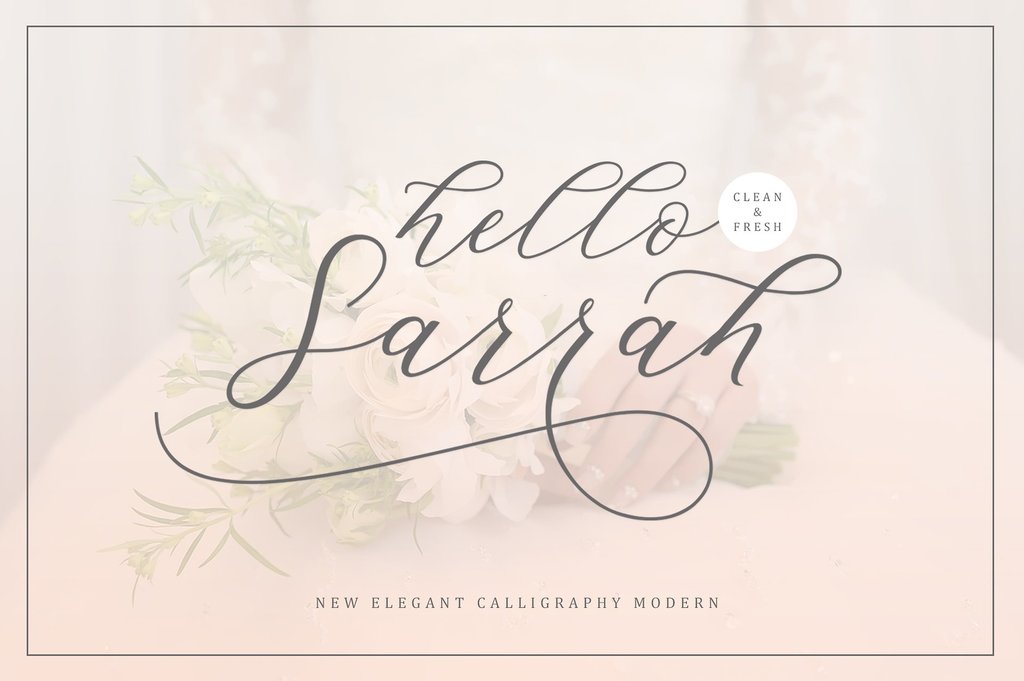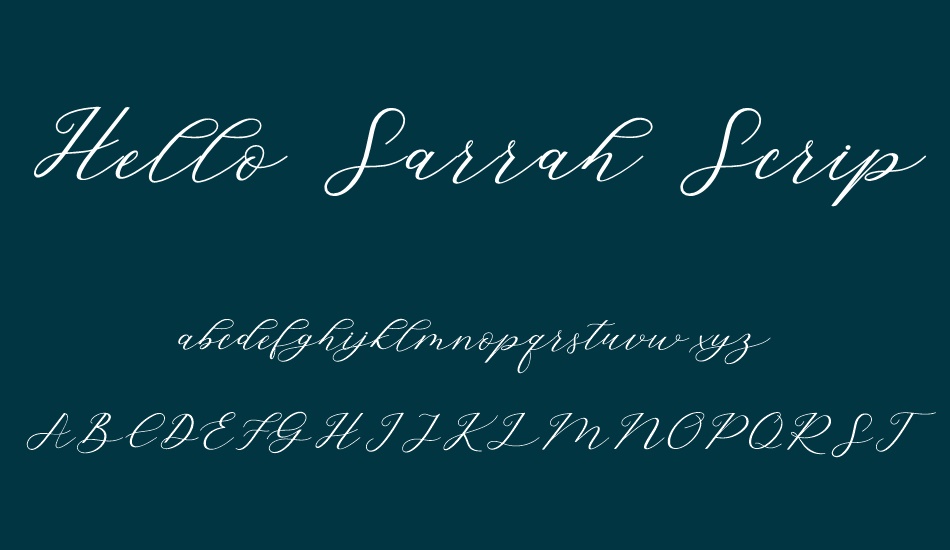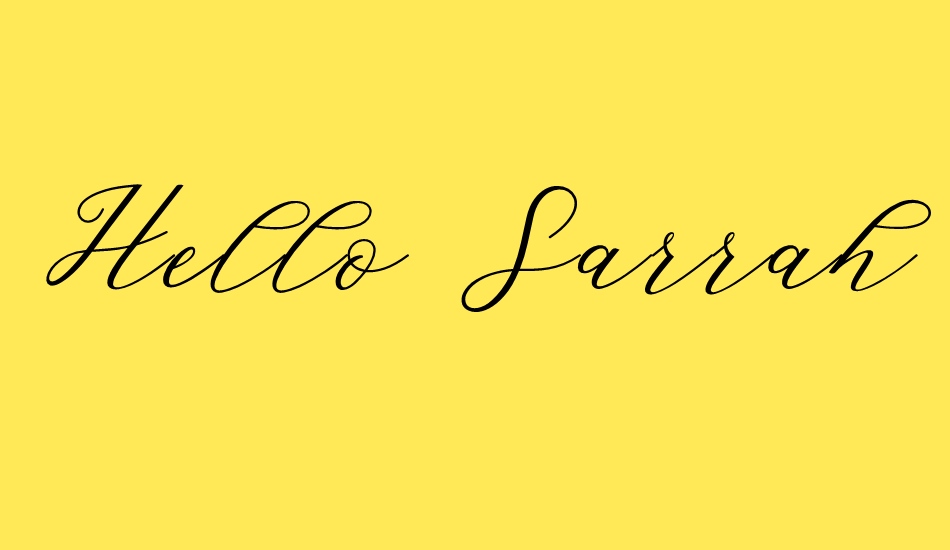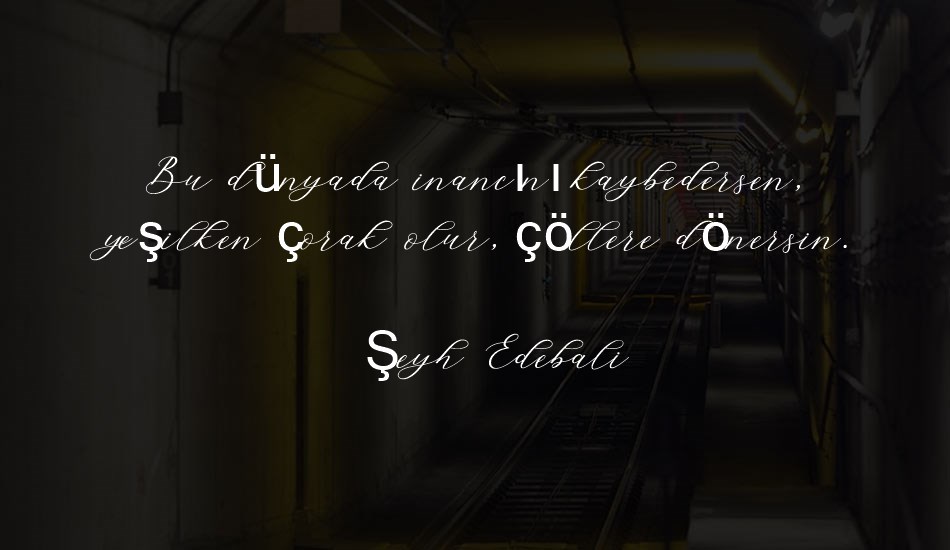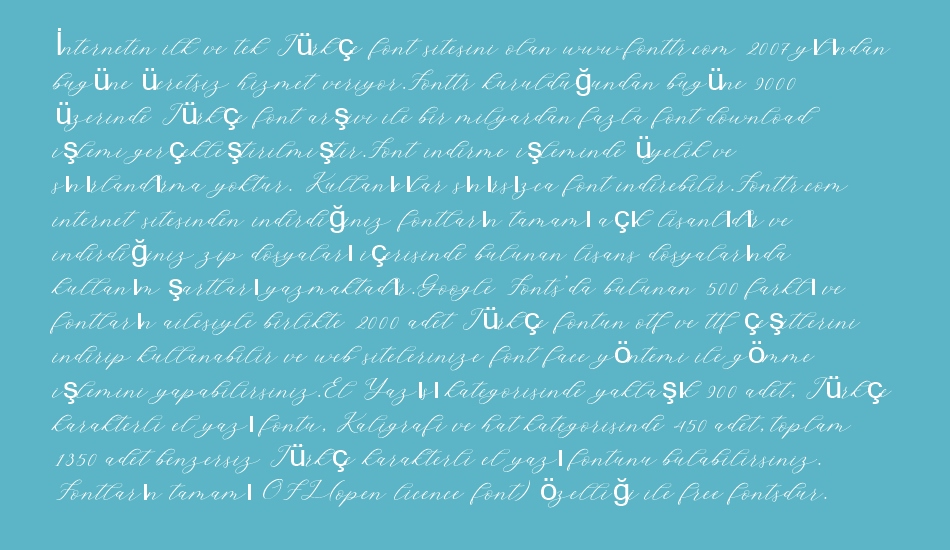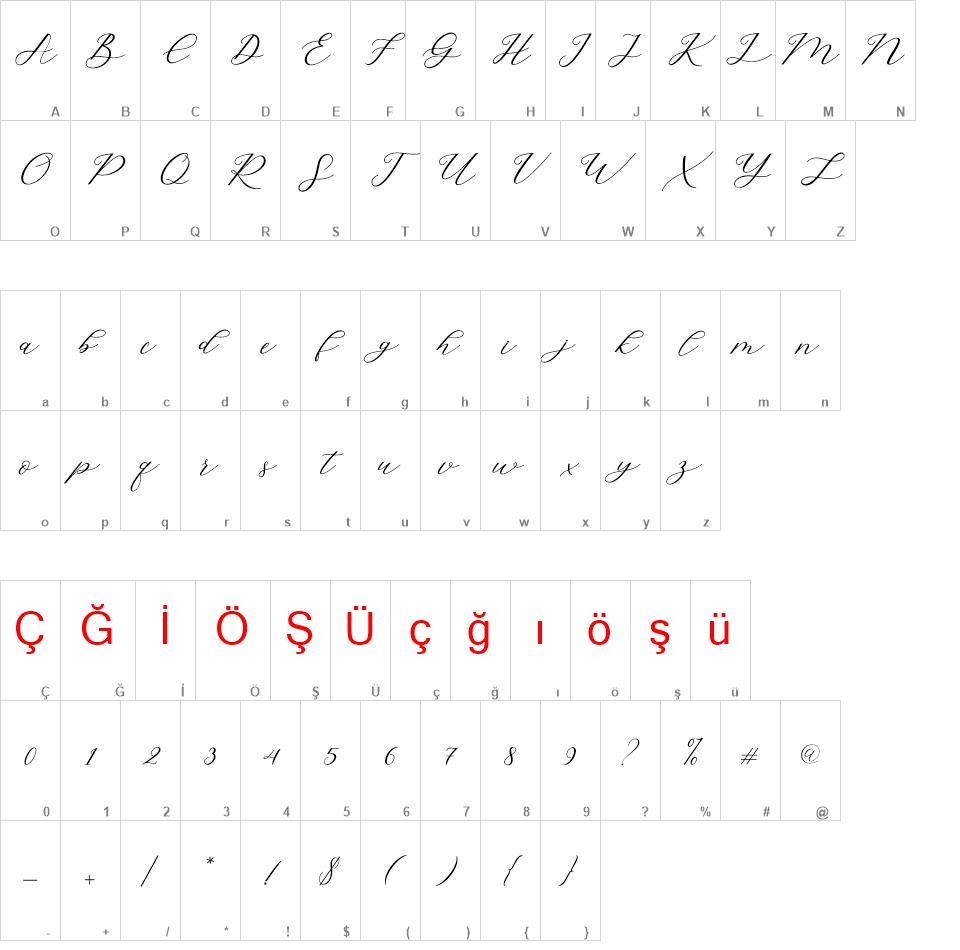
Hello Sarrah Script
Hello Sarrah Script is modern feminine font, every single letters have been carefully crafted to make your text looks beautiful. With modern script style this font will perfect for many different project ex: photography, watermark, quotes, blog header, poster, wedding, branding, logo, fashion, apparel, letter, invitation, stationery, etc.
Hello Sarrah Script font